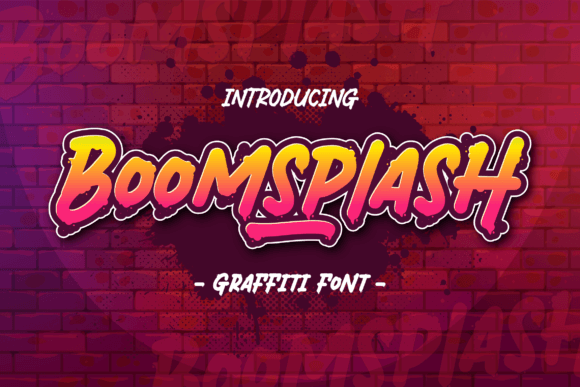
**Boomsplash: The Font That Makes a Statement**
In a world awash with bland and mundane fonts, Boomsplash emerges as a breath of fresh air, a font that commands attention and leaves an indelible mark. Inspired by the vibrant energy of graffiti art, Boomsplash is a display font that oozes personality and style. Its bold and expressive strokes exude a sense of freedom and rebellion, making it the perfect choice for those who dare to stand out.
With its captivating curves and dynamic letterforms, Boomsplash effortlessly captures the eye, transforming ordinary text into captivating works of art. Its unique aesthetic adds an instant touch of sophistication and intrigue to any project, whether it's a product packaging design, a branding project, a magazine layout, or a social media post.
**Unleash Your Creativity with Boomsplash**
Boomsplash is a versatile font that seamlessly adapts to a wide range of design applications. Its bold and eye-catching nature makes it ideal for creating impactful headlines, logos, posters, and other marketing materials. Its playful and energetic vibe also lends itself perfectly to invitations, greeting cards, and social media graphics.
But Boomsplash's versatility doesn't stop there. Its unique character makes it a compelling choice for use in wedding invitations, where its bold strokes and dynamic letterforms add a touch of playful elegance to the occasion. It's also a great choice for expressing words above a background, where its ability to stand out against visual clutter makes it impossible to ignore.
**A Font That Speaks Volumes**
Boomsplash is more than just a font; it's a statement piece that speaks volumes about your brand or project. Its bold and confident strokes convey a sense of power and authority, while its playful and energetic nature adds a touch of whimsy and fun. Whether you're looking to make a bold statement or simply add a touch of personality to your designs, Boomsplash is the perfect choice.
**Experience the Boomsplash Difference**
So why settle for ordinary fonts when you can have Boomsplash? With its bold and captivating design, Boomsplash is sure to make your projects stand out from the crowd. Its versatility and wide range of applications make it a valuable asset for any designer or creative professional. And with its ability to convey both power and playfulness, Boomsplash is the perfect choice for those who want to make a statement.